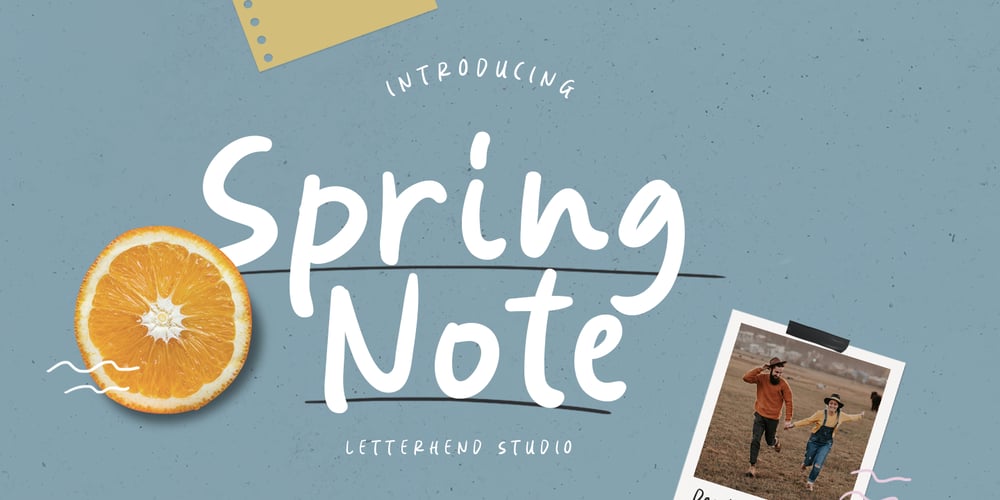
Spring Note
Spring Note font
Spring Note Font Family was designed by Hendry Juanda and published by Letterhend. Spring Note contains 2 styles and family package options. Spring Note is a playful yet usable font that you can use for any of your projects. Perfect for cute quote, branding, and anything. This font already support multi language. Also comes with two style, Regular and Bold! Happy Creating!